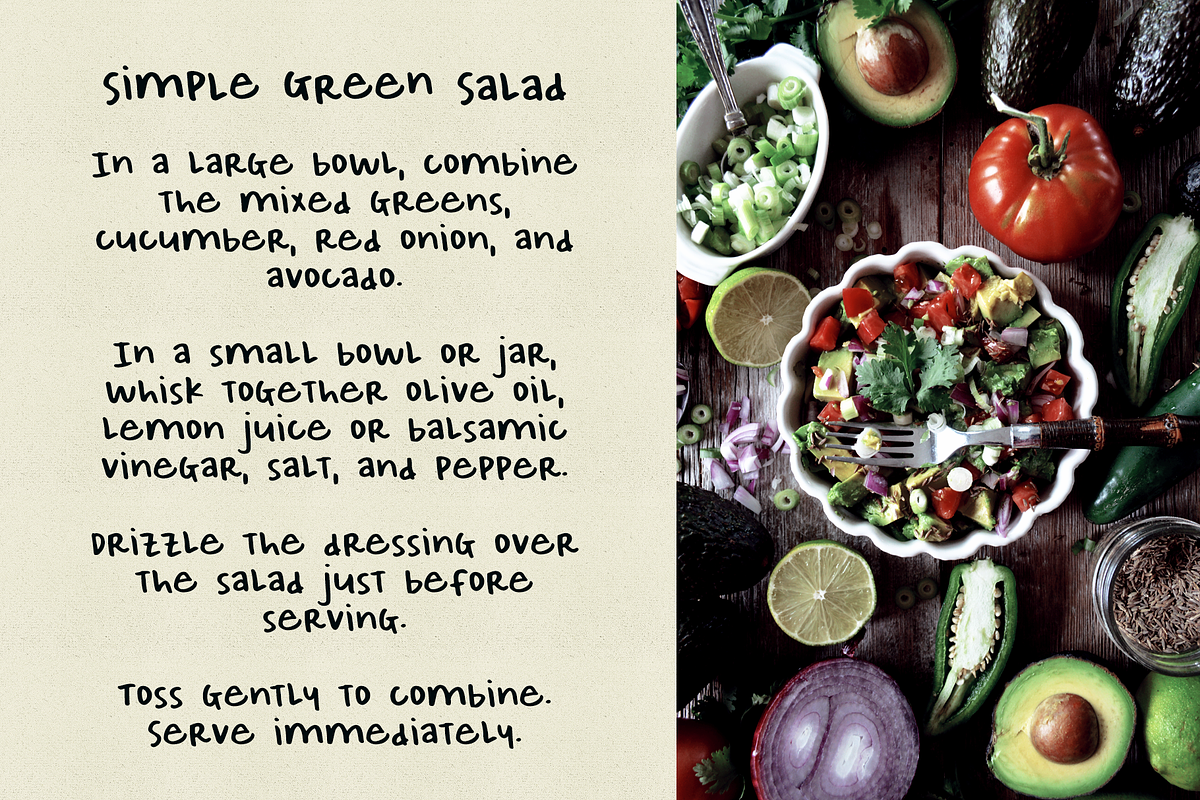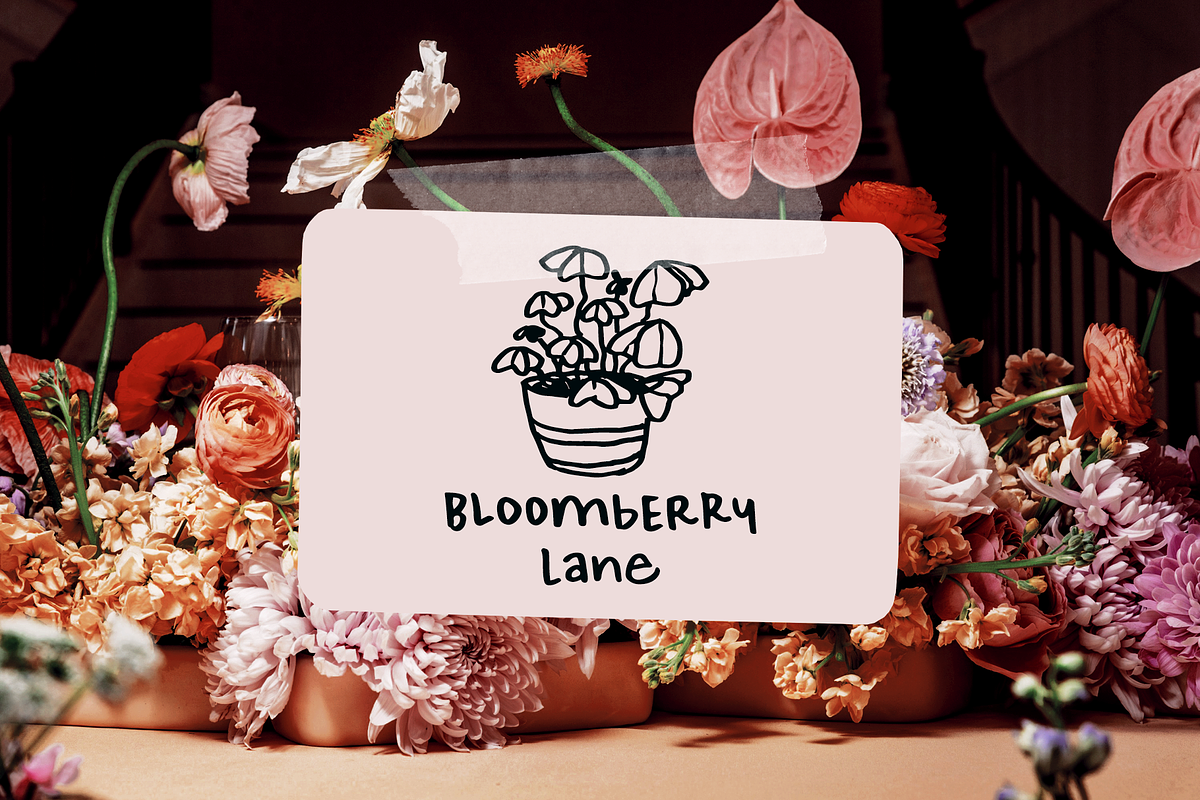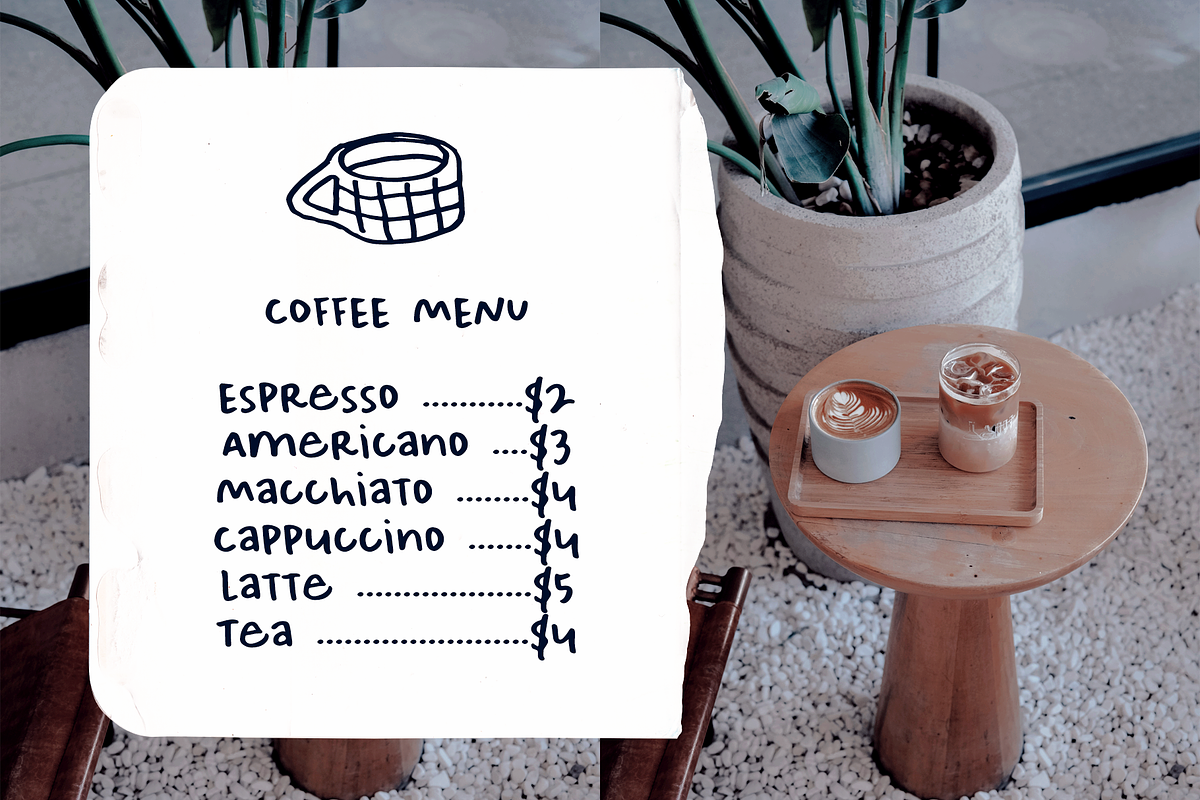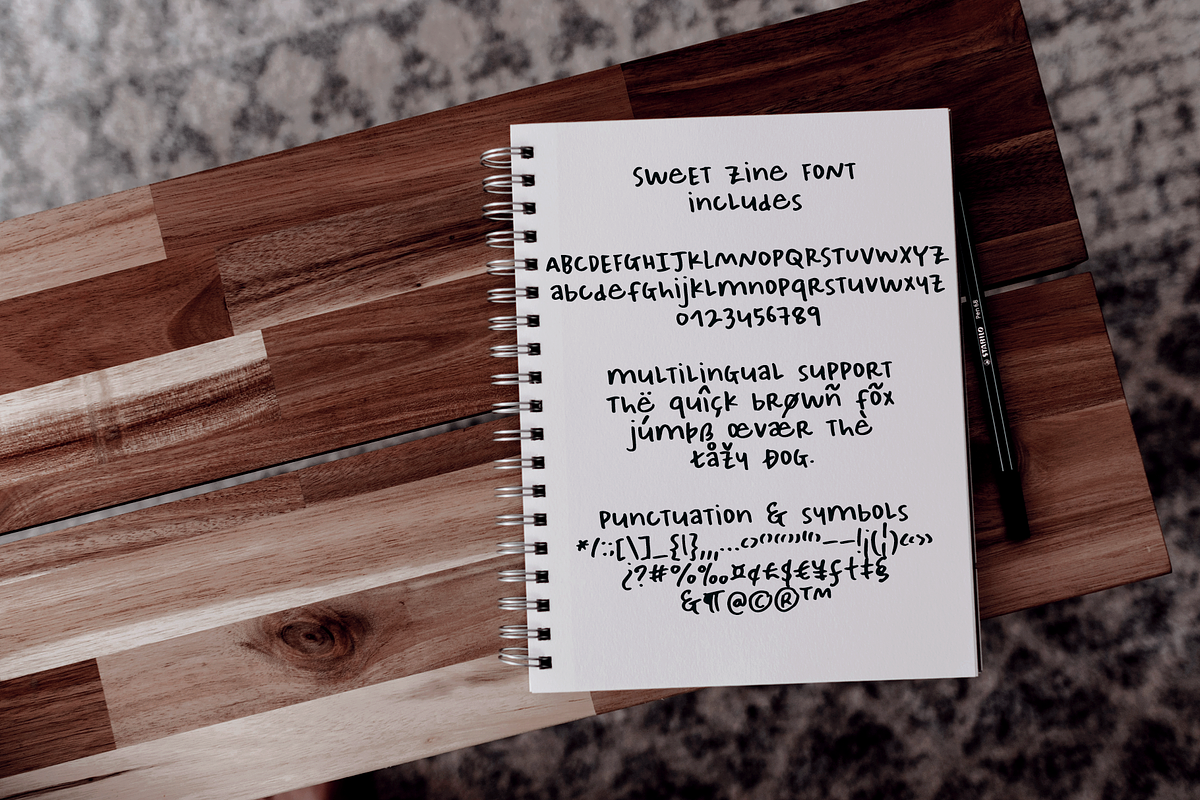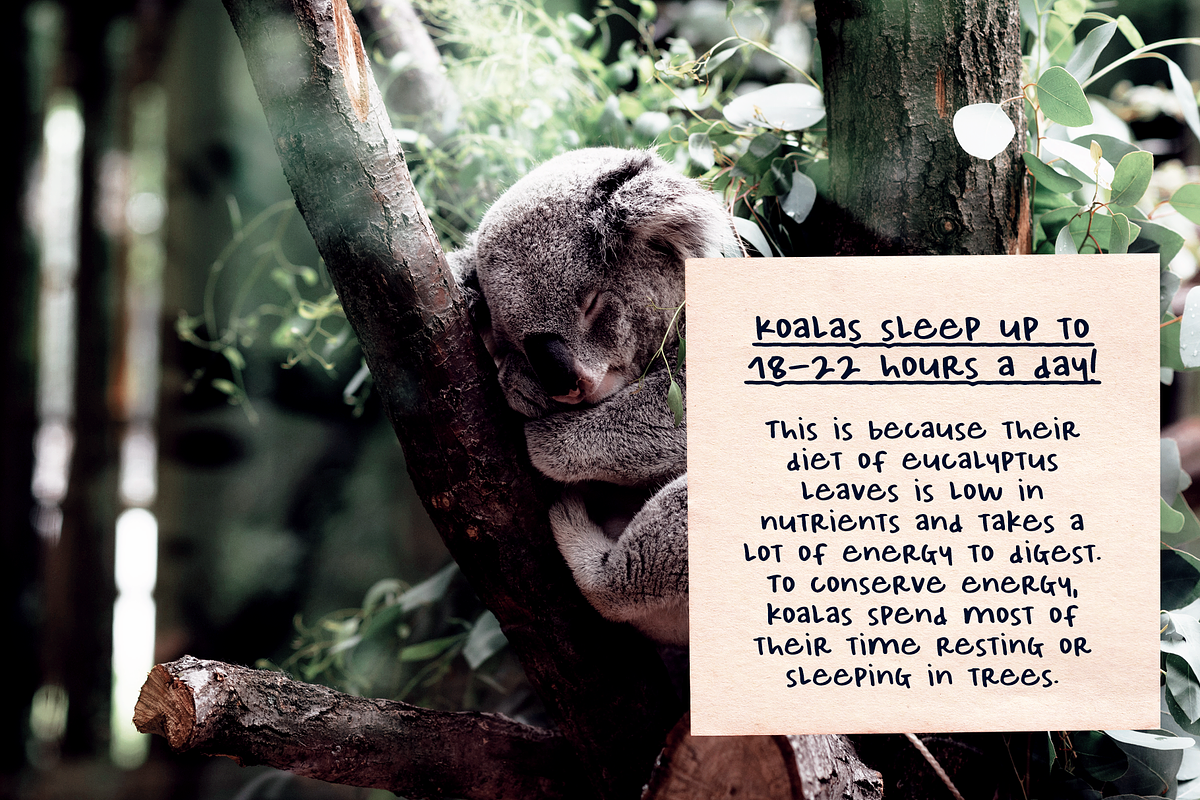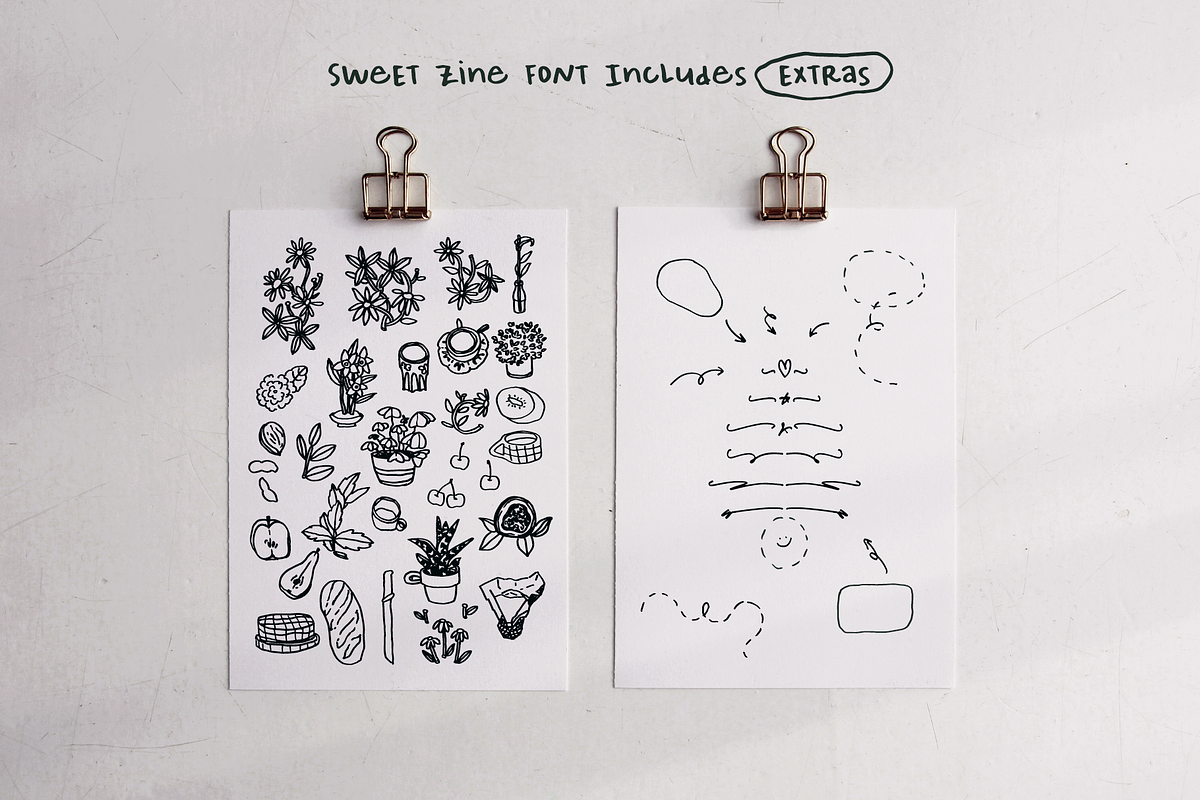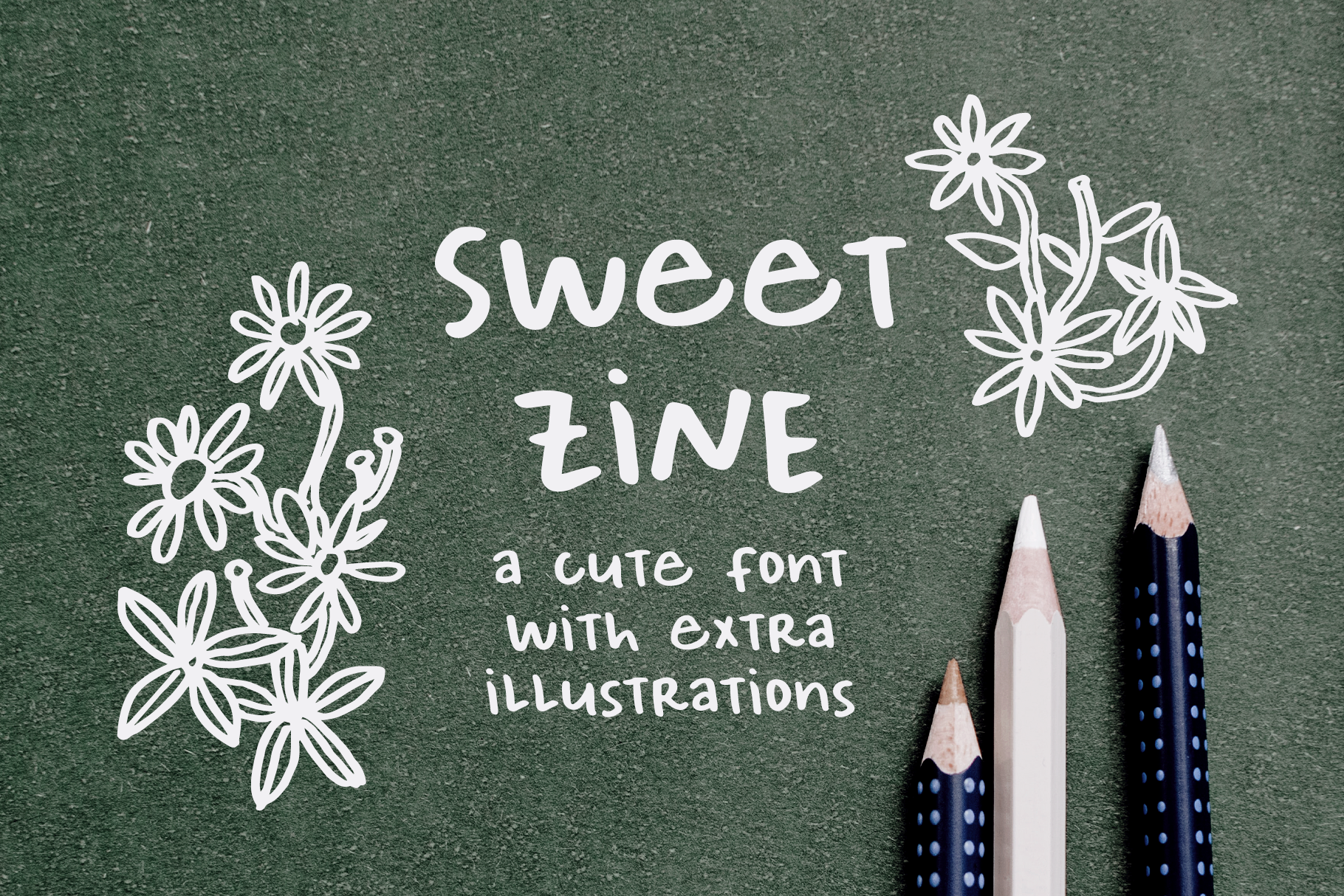
Sweet Zine Handwritten Font
Say hello to Sweet Zine – a cute, quirky handwritten font inspired by the lettering style I use in my handmade zines! As a zine lover and maker, I designed this font to bring the same playful, personal vibe to your creative projects.
Sweet Zine Font is perfect for:
Zines, journaling, and scrapbooks
Posters, stickers, and digital planners
Social media graphics, YouTube thumbnails, and more!
3 font styles:
Regular – fun, casual handwritten style
Jumpy – with alternating baseline for extra bounce
Underlined – adds a built-in underline for extra flair
Plus! a drawings font, with:
26 hand-drawn illustrations – zine-inspired doodles to add character to your work
36 cute extras – including swashes, arrows, bubbles, scribbles, underlines, and more!
Each element is crafted with love and attention to detail, perfect for adding personality to your projects. Whether you're designing a DIY zine, creating eye-catching social posts, or just want a font that feels fun and handmade, Sweet Zine will bring your ideas to life.